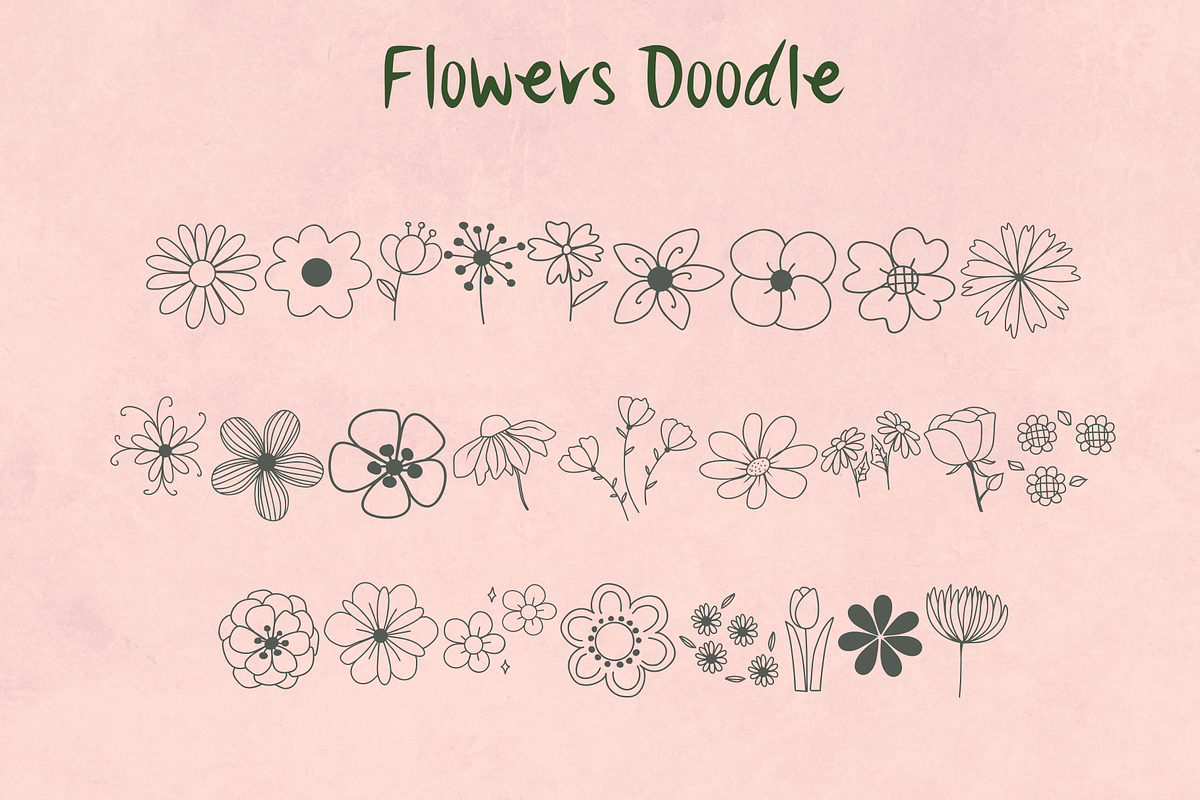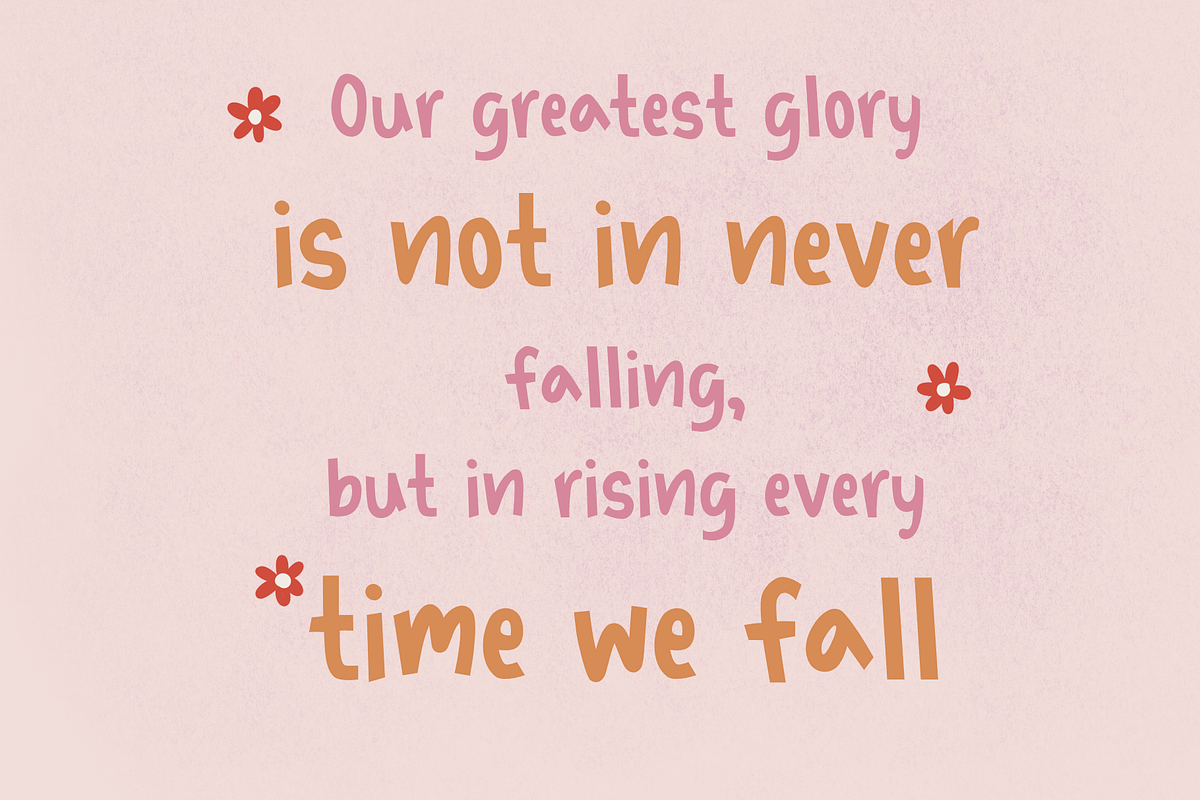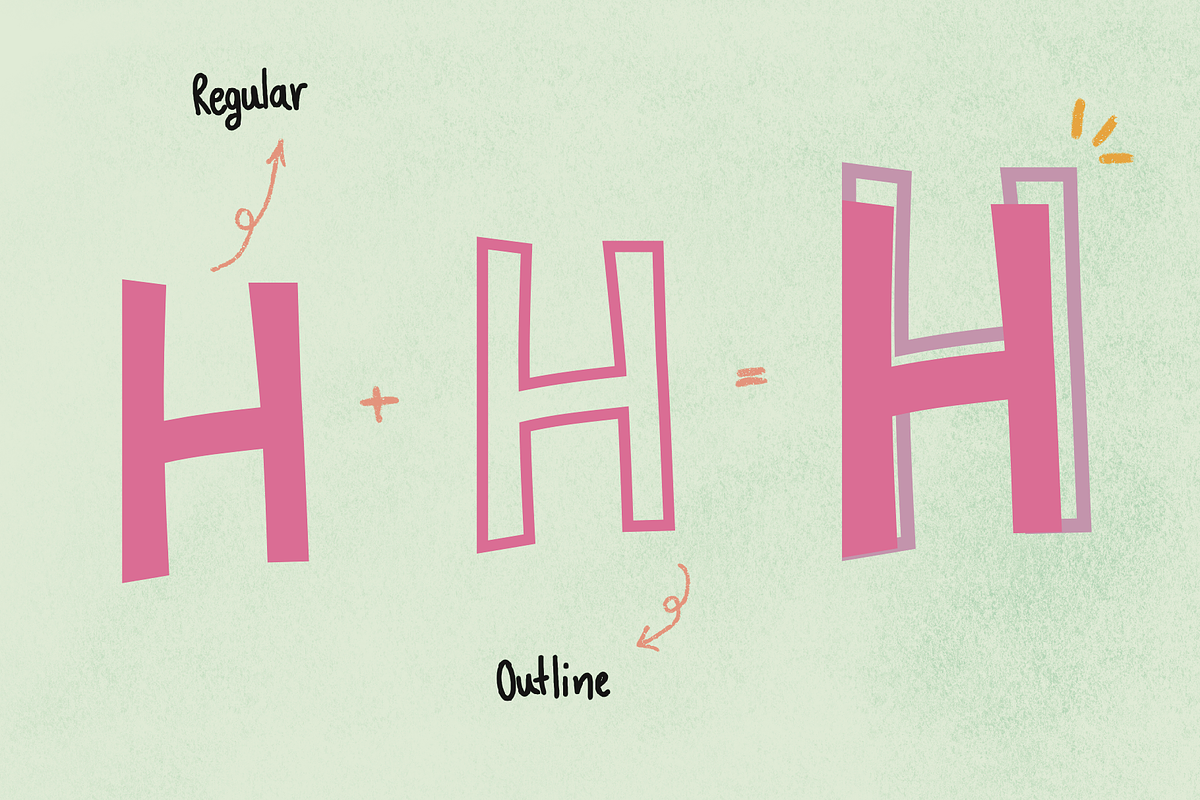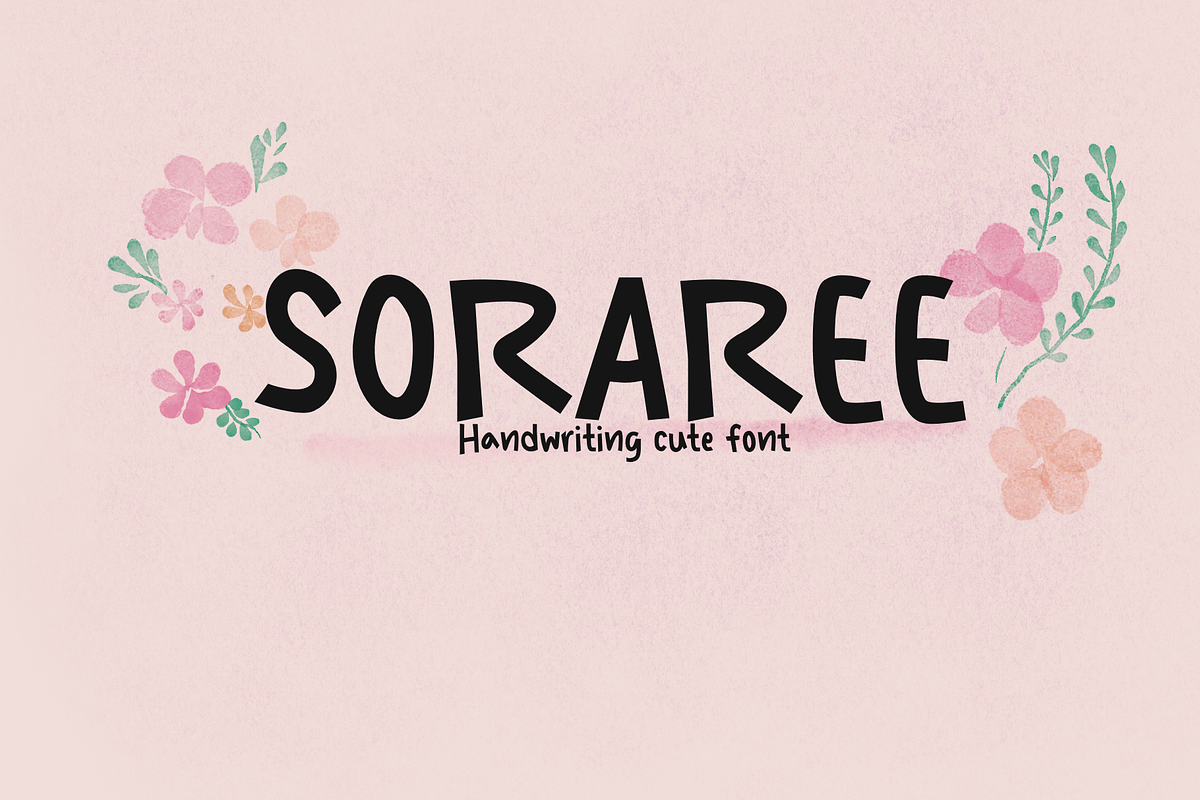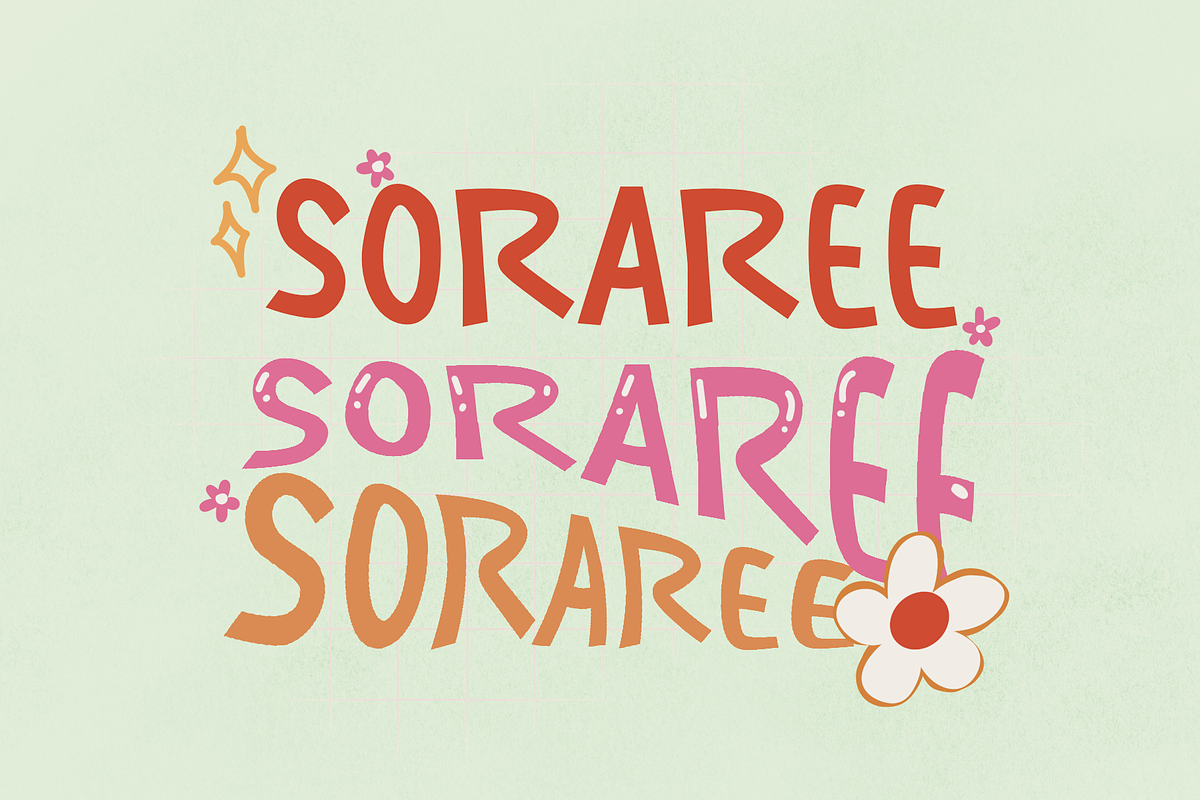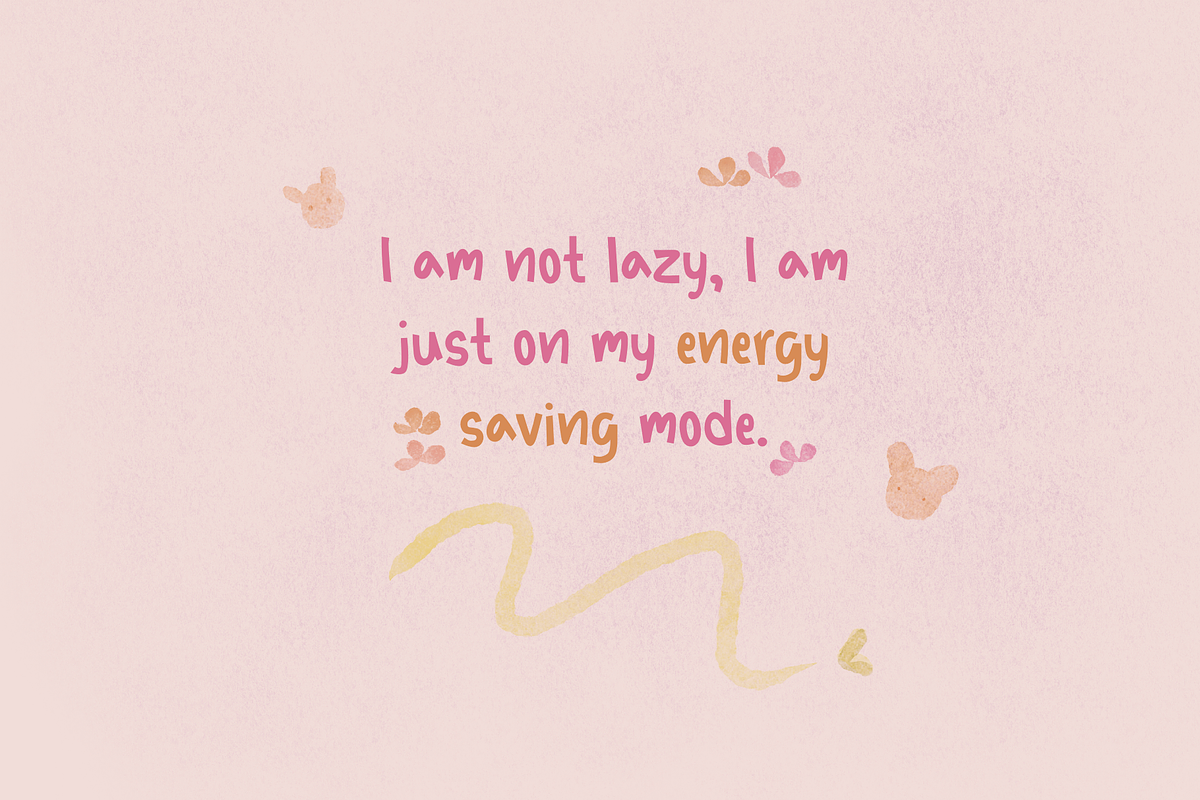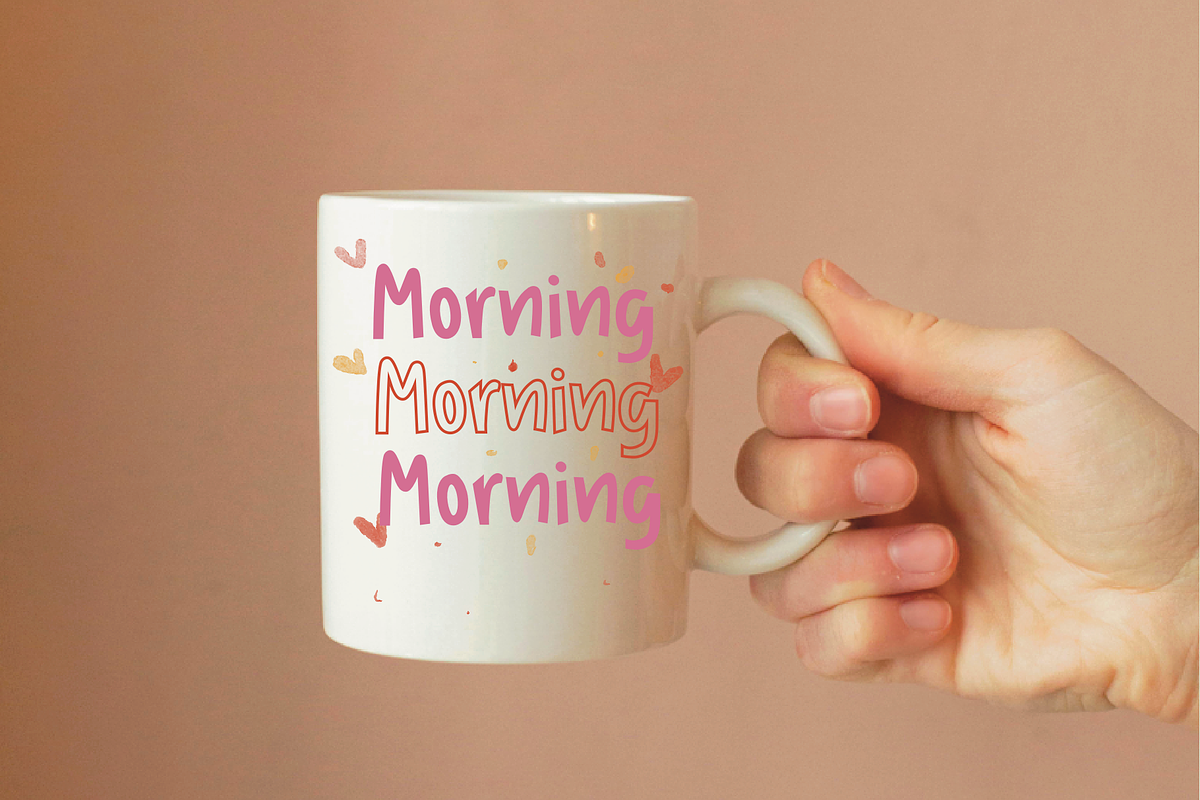
Soraree font
SORAREE An adorable decorative font that hides sweetness and charm, making your design work captivating and charming. The curved edges of the letters add an extra touch of loveliness.